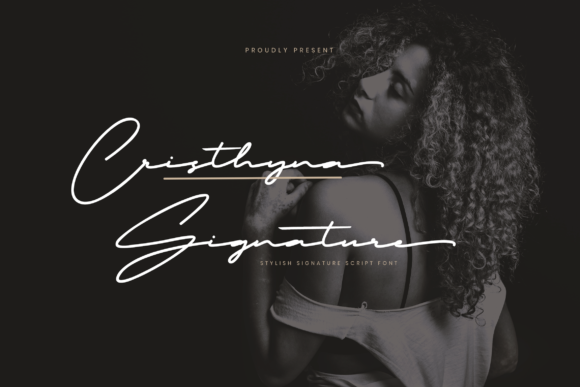
Introduction to Cristhyna Signature Font
Cristhyna Signature has a stylish and beautiful flow.
Fall in love with its incredibly versatile style and use it to create spectacular designs .
Key Features of Cristhyna Signature Font